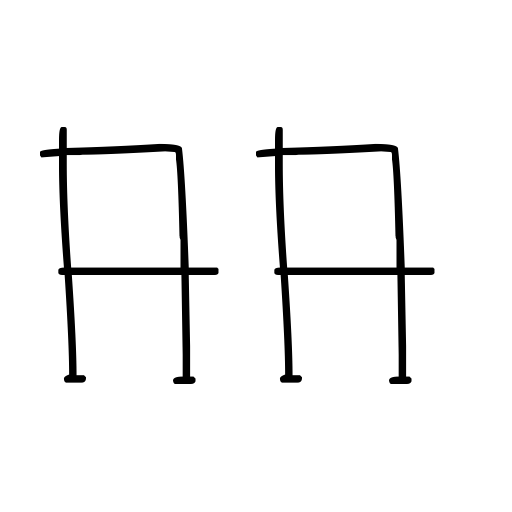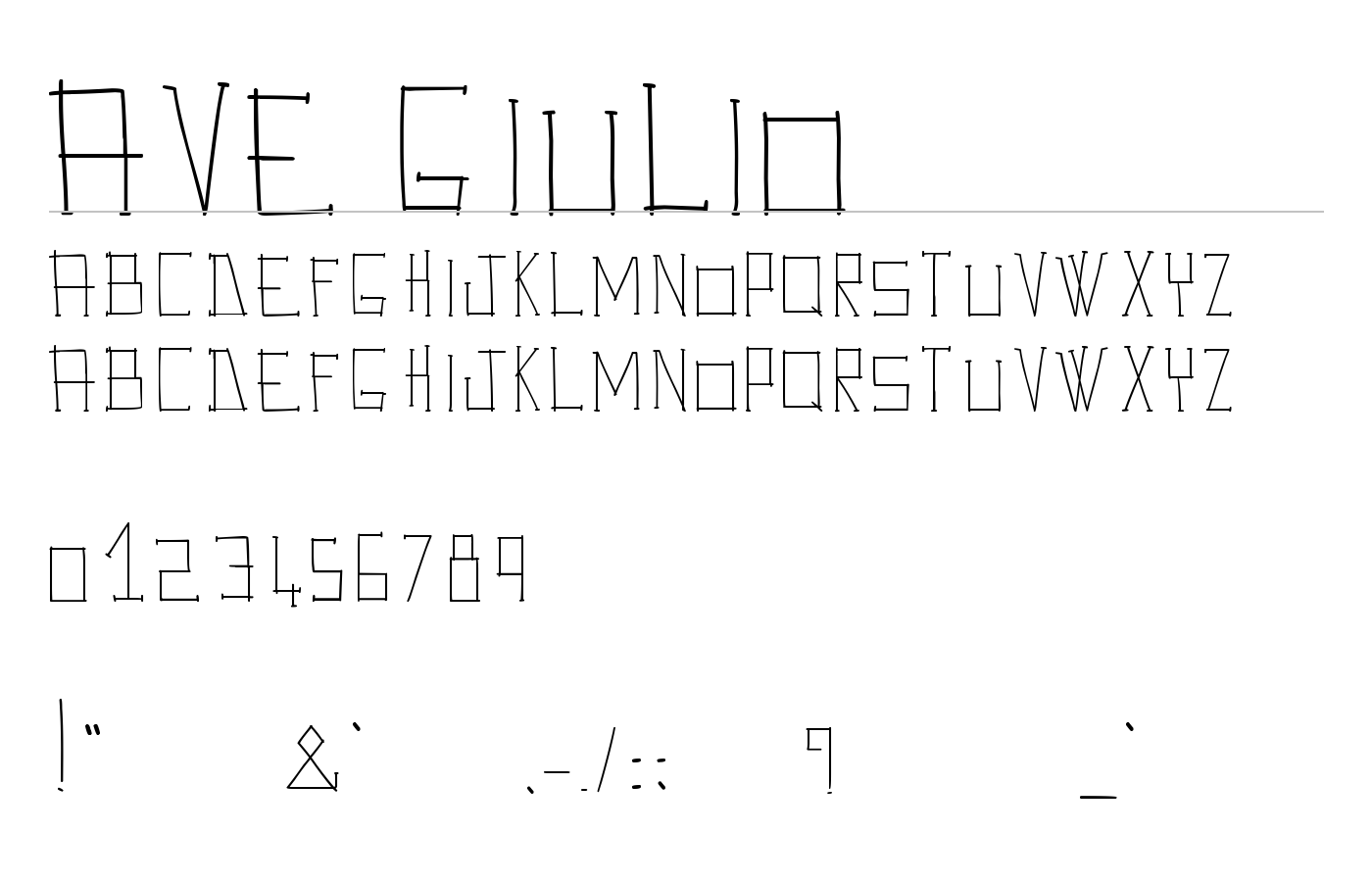
Ave Giulio is a unique, narrow sans serif font characterized by its delicate, hand-drawn lines and slightly irregular strokes that convey a playful and artistic feel. Its tall, thin letterforms with subtle quirks make it ideal for creative projects, logos, and titles where a distinctive, handcrafted look is desired. This font works best in designs seeking a quirky yet elegant personality, adding a touch of individuality and charm.
Ave Giulio Font
About Ave Giulio Font